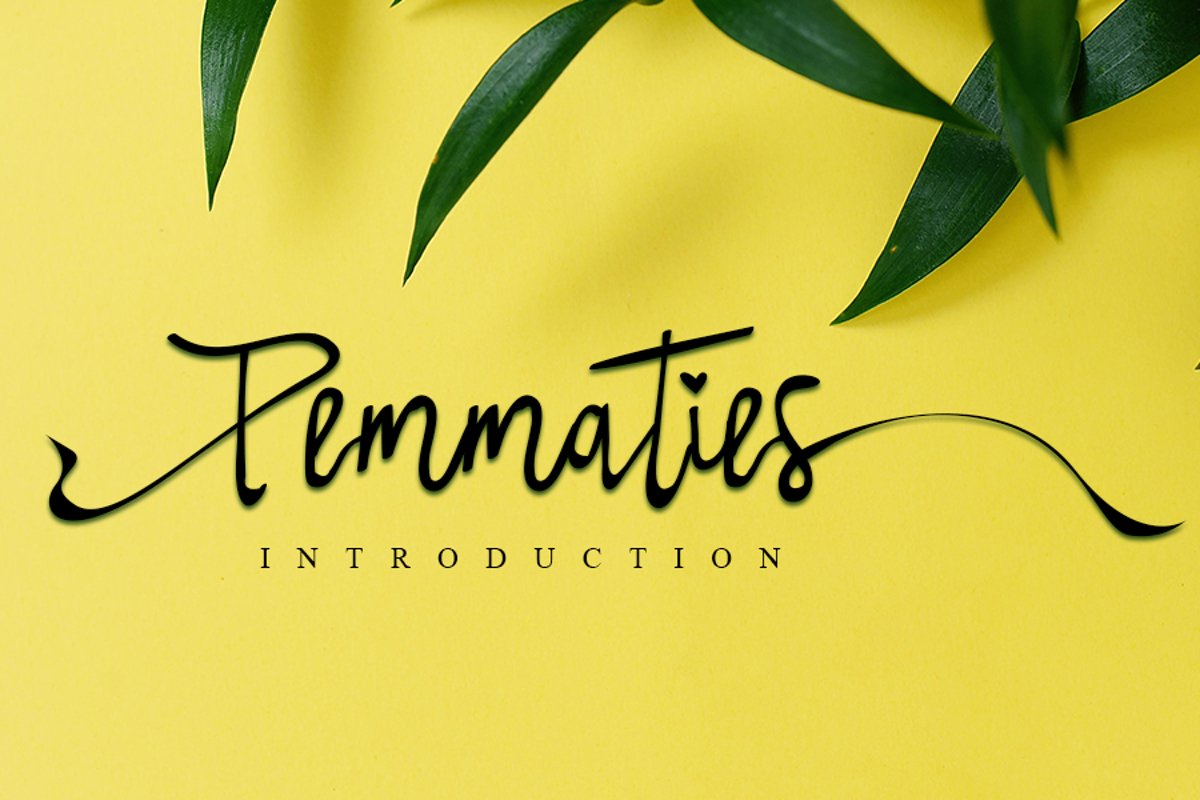
Temmaties
Temmaties is a cute and relaxed handwritten font. Fall in love with its incredibly versatile style and use it to create gorgeous wedding invitations, beautiful stationary art, eye-catching social media posts, and much more!